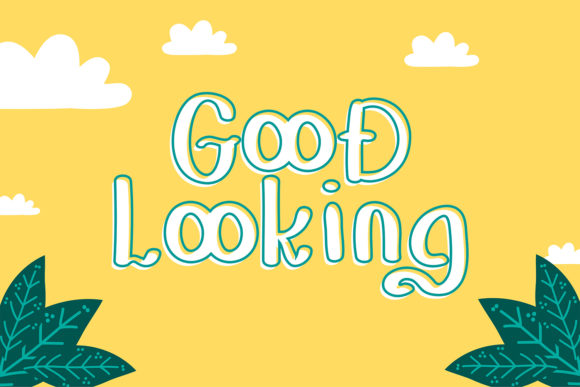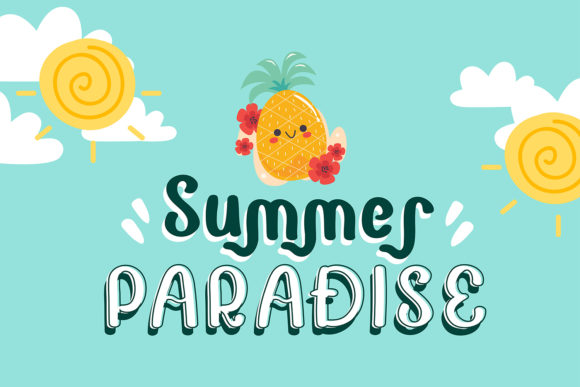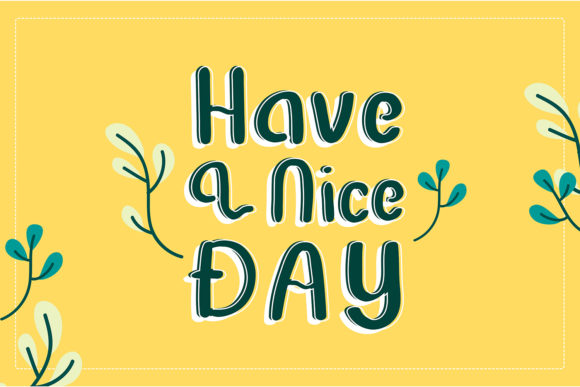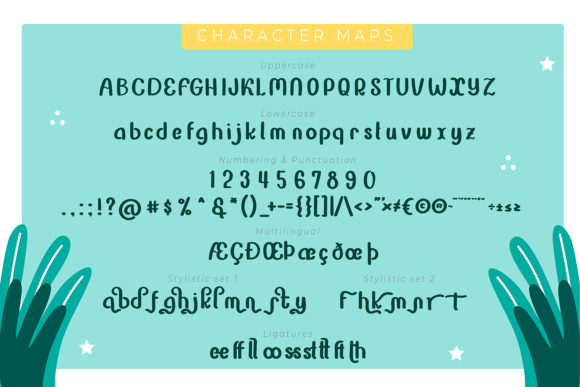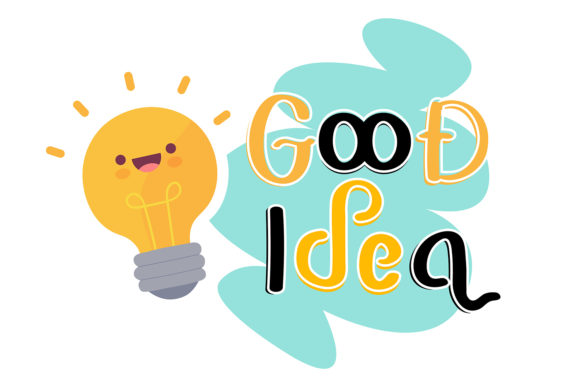
Introduction to Flynster Font
Flynster is a modern, stylish and brushed handwritten font.
Due to its relaxed nature, it can be applied to a variety of designs, both formal and informal .
Key Features of Flynster Font
Why Choose Flynster Font?